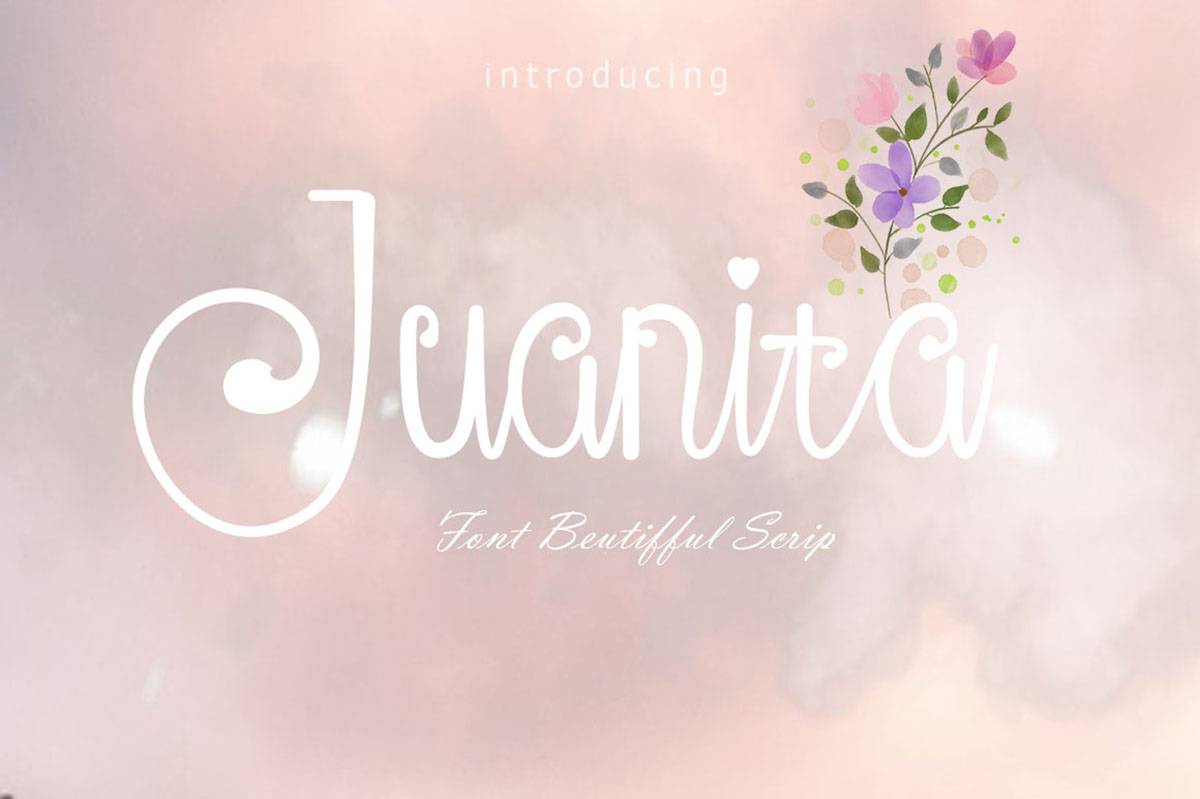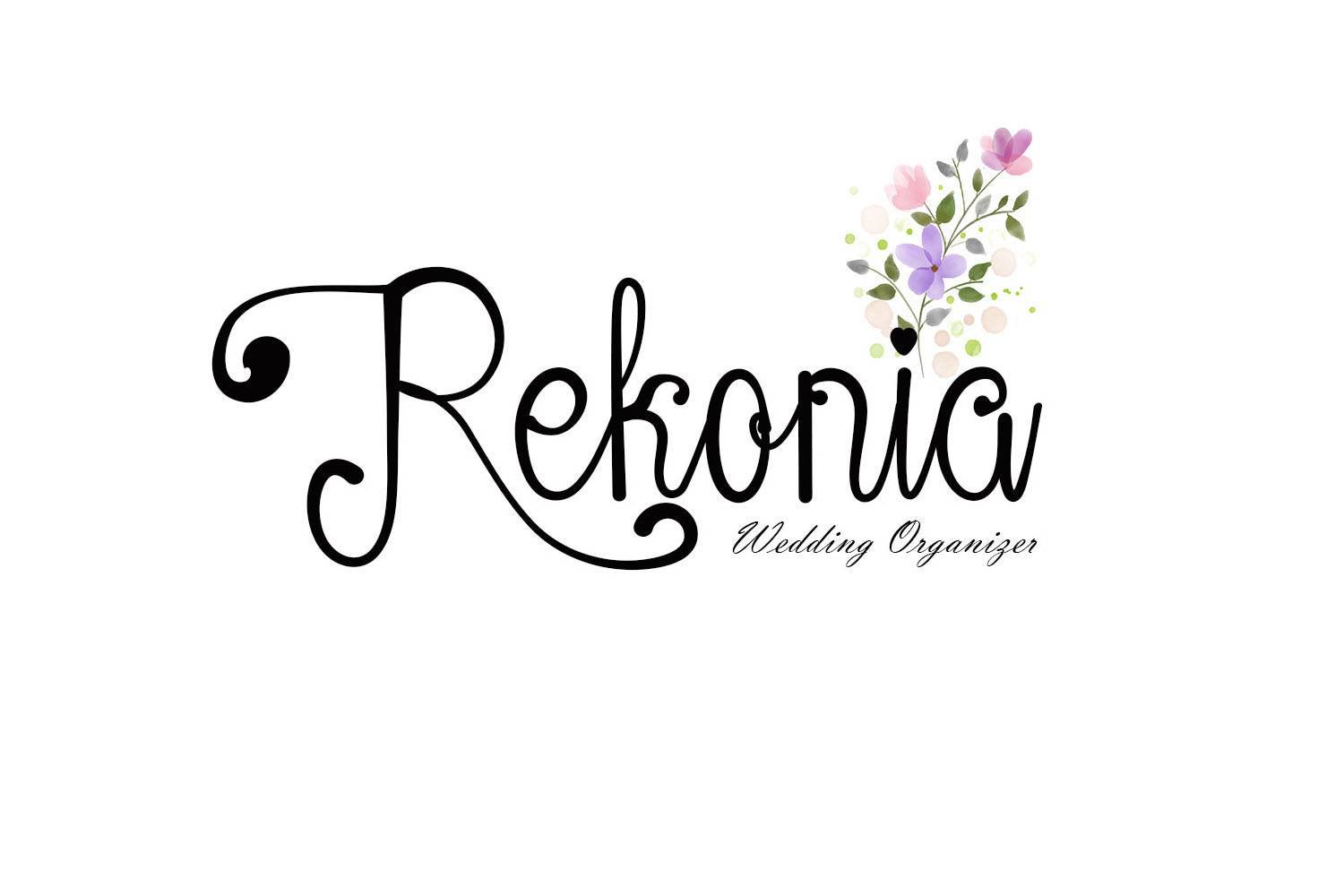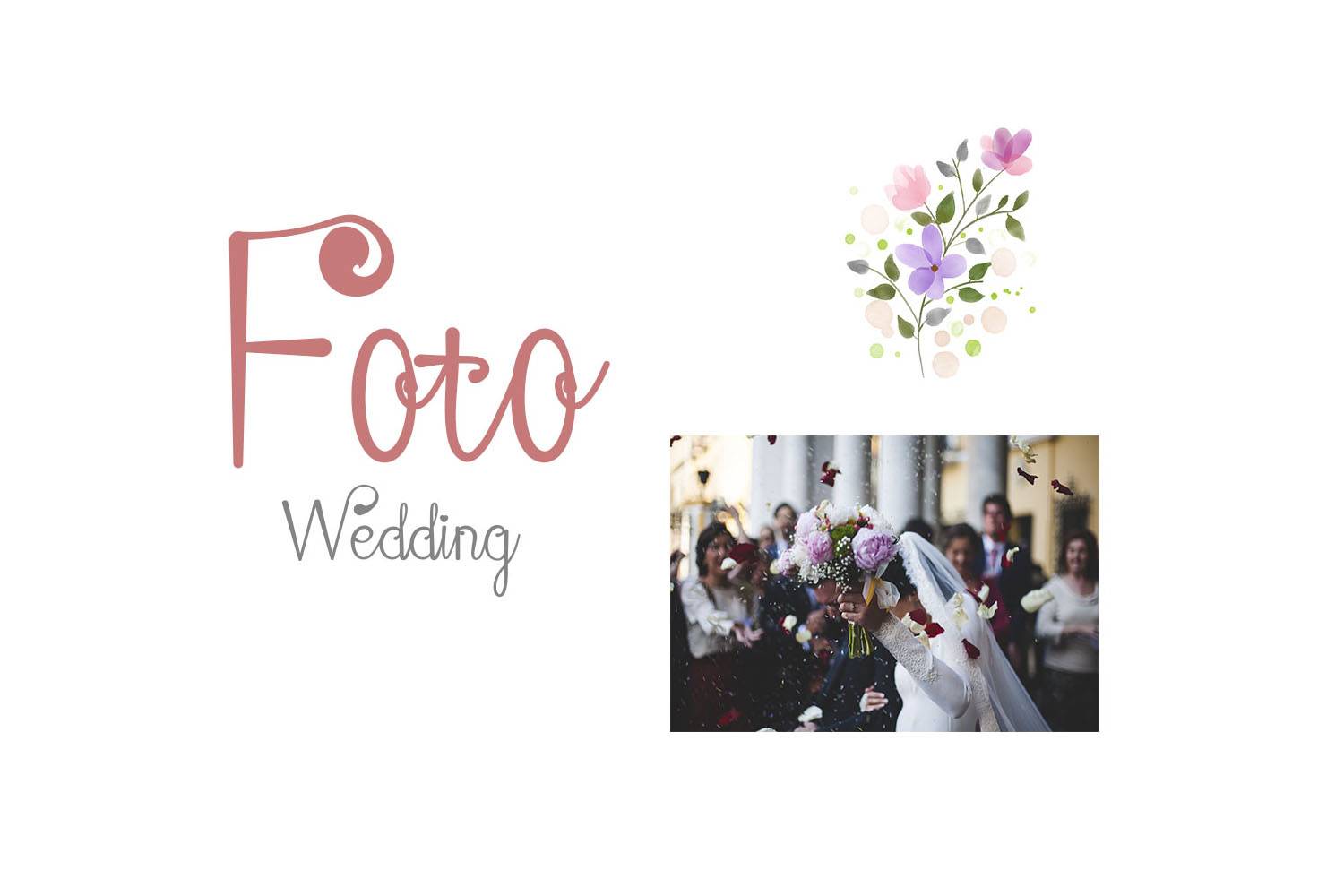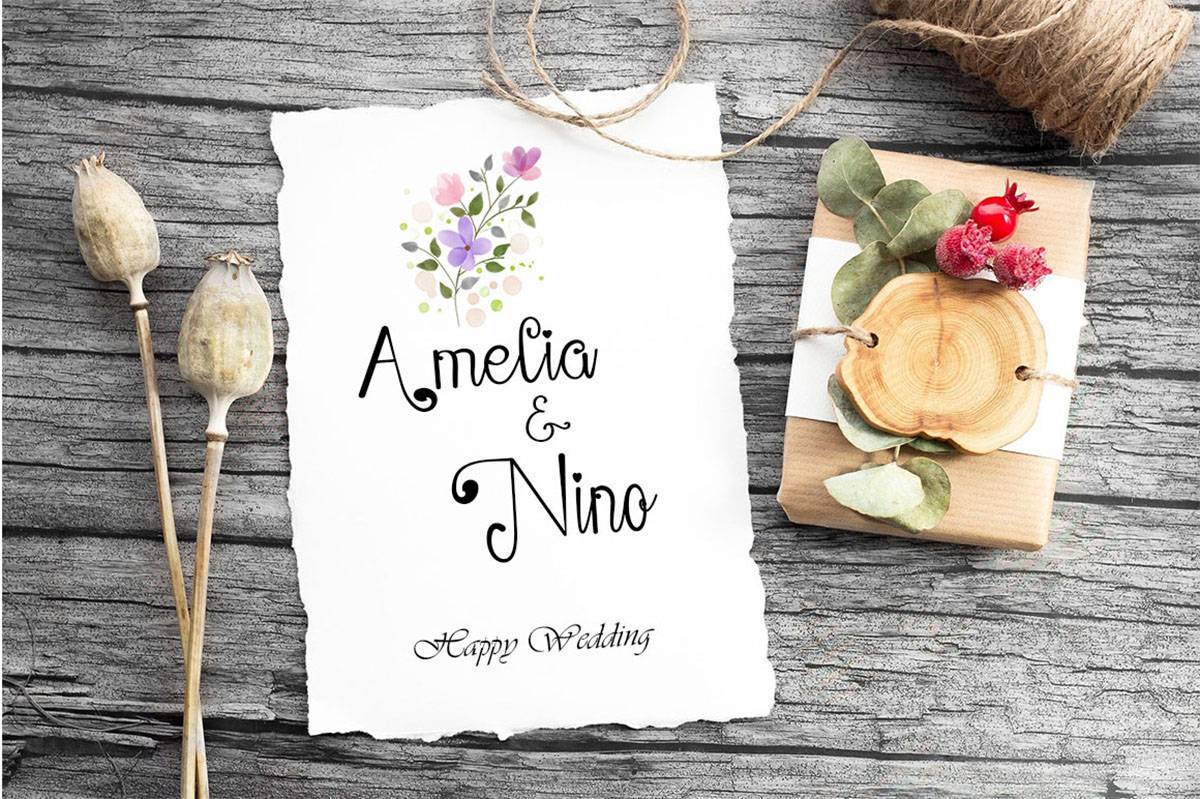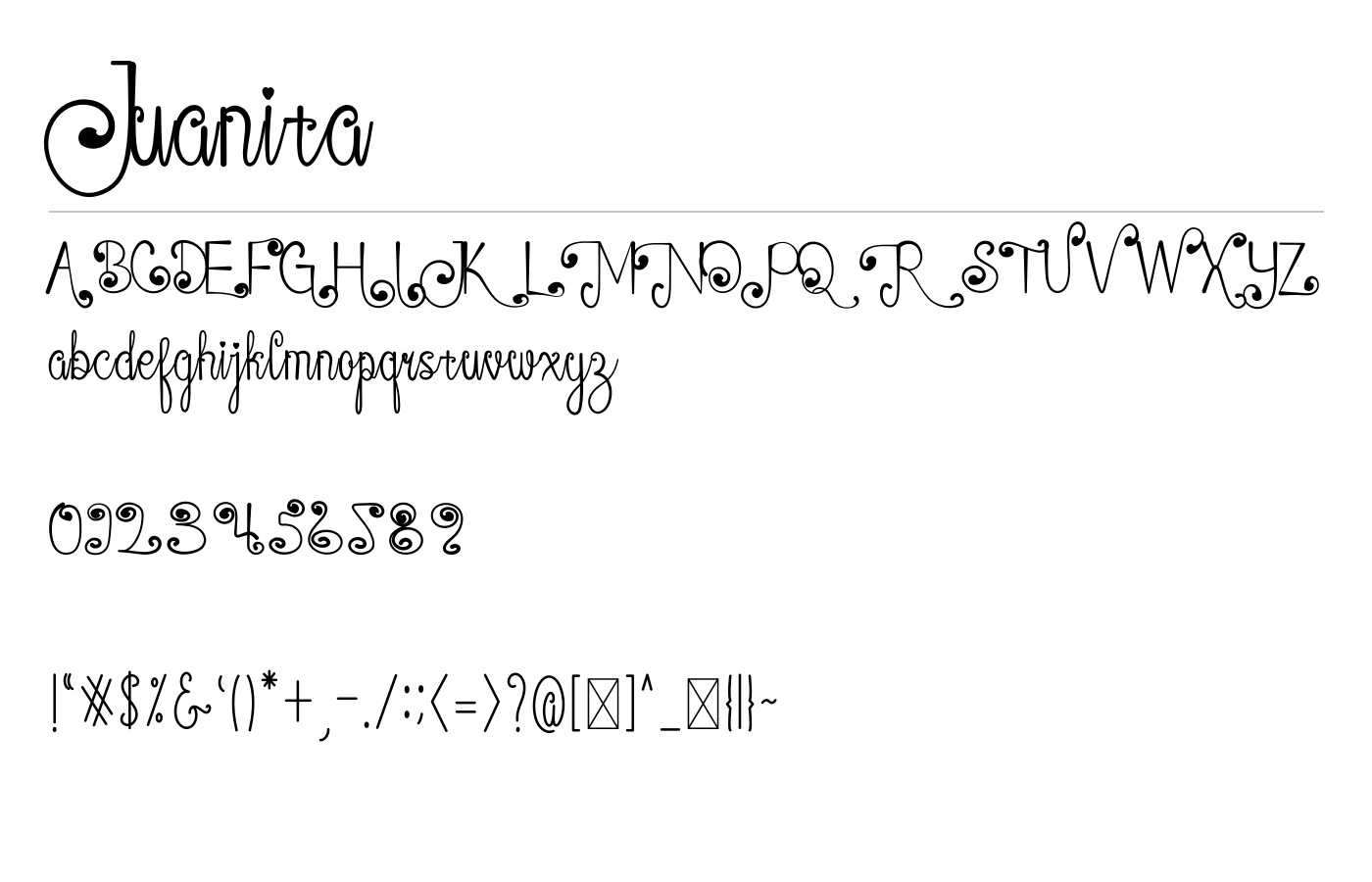
Juanita is a whimsical, decorative script font with playful swirls and curls that give it a charming, handmade feel. Its thin strokes and quirky letterforms make it perfect for creative projects seeking a fun and inviting personality, such as children’s designs, invitations, or casual branding. This font shines best in display use where its unique style can stand out and add a touch of joyful elegance.
Juanita Font